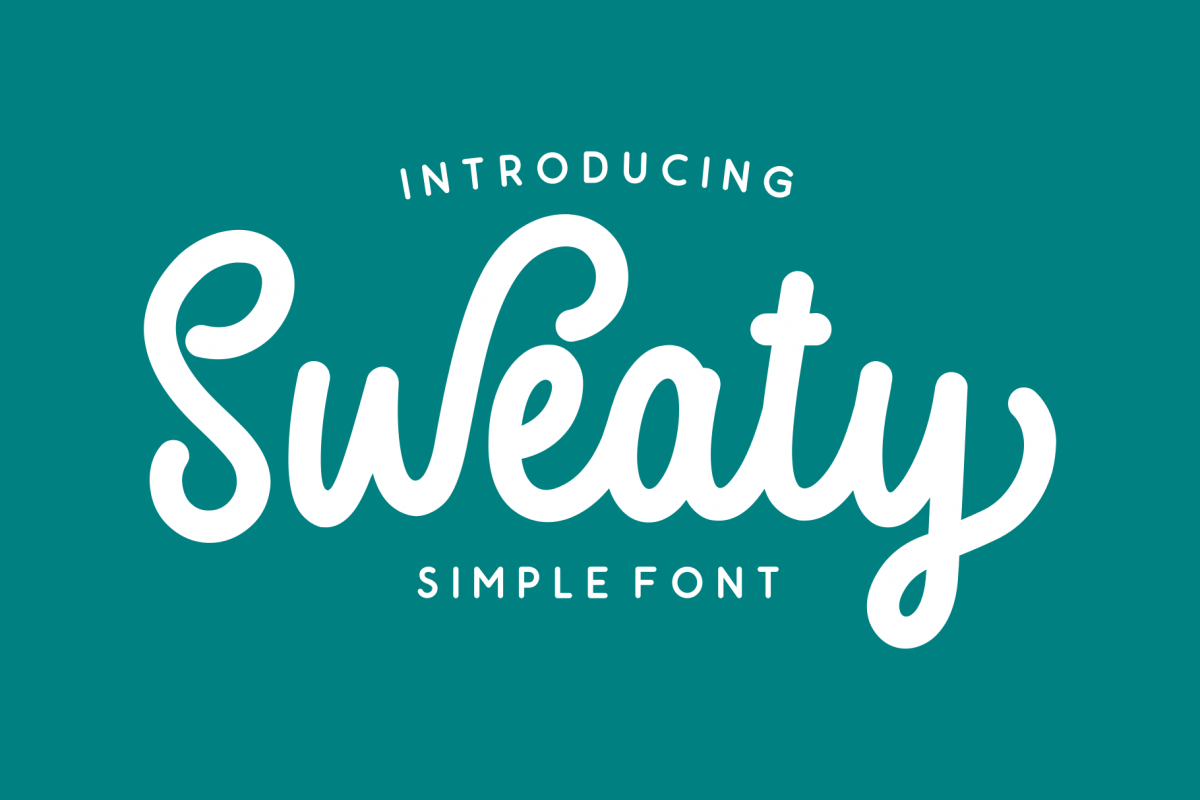
Sweaty | Bold Script Font
Sweaty is a simple script typeface which is simple and funny. This font is perfect as a logo, quotes, apparel design, wedding invitation, and many more. You can use the alternate to create your own customized lettering.
you can use alternate font by typing the code : g1, j1, w1, y1, z1